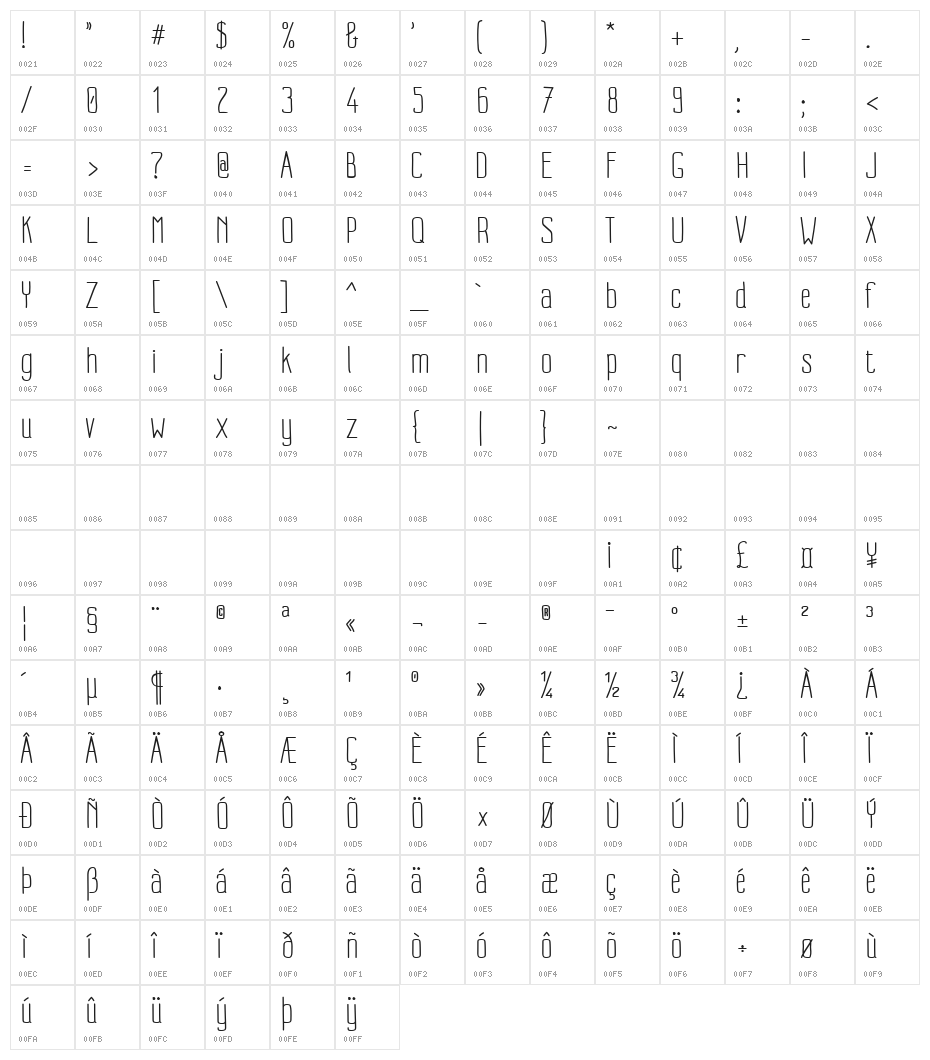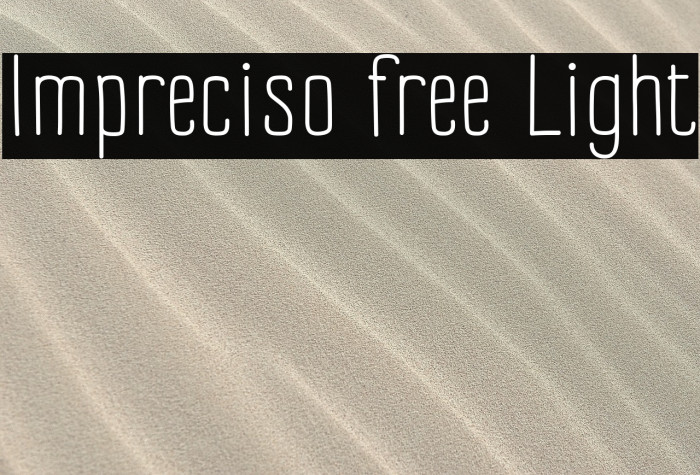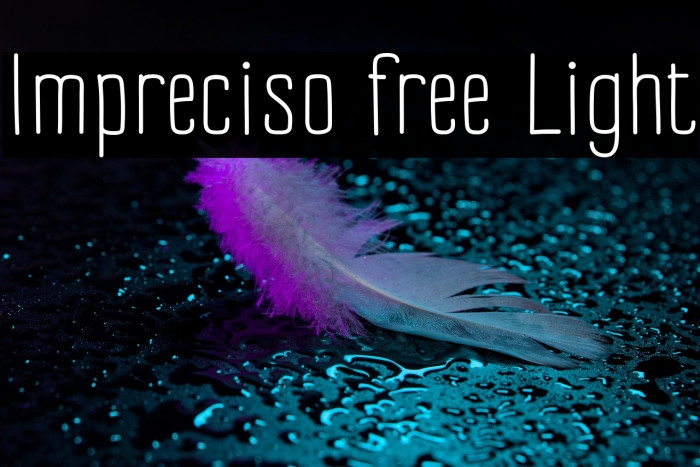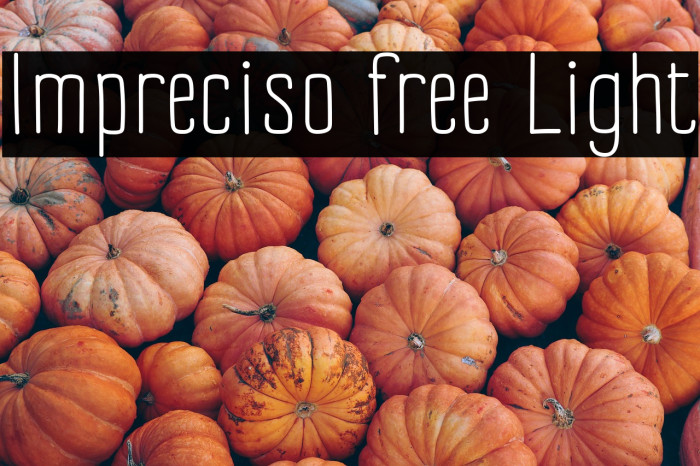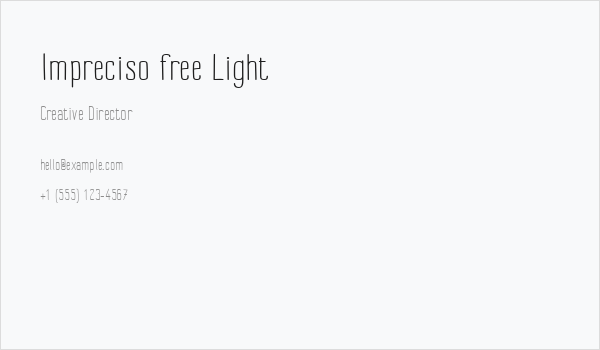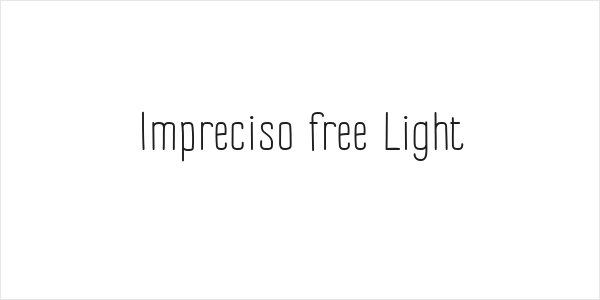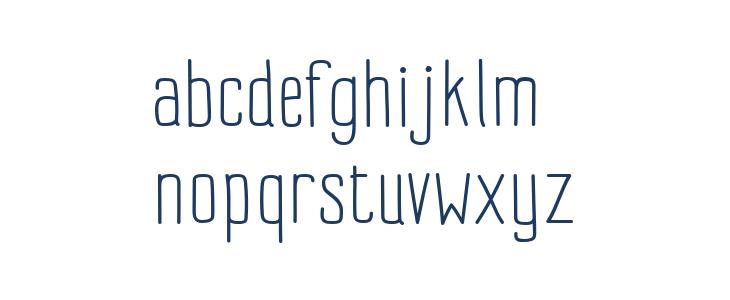
Impreciso free Light Font
Impreciso free Light Description
This font features a unique, hand-drawn aesthetic with elongated, narrow characters that give it a distinct, casual appearance. The strokes are consistent in width, contributing to a clean and modern look. The uppercase letters are tall and slightly condensed, while the lowercase letters maintain a similar style with a playful touch. The numerals are straightforward and align well with the overall design. Special characters are included, maintaining the font's cohesive style. This font's simplicity and charm make it versatile for various design projects.
Proposed ProjectsIdeal for creative projects such as posters, invitations, and branding materials where a casual and approachable feel is desired.